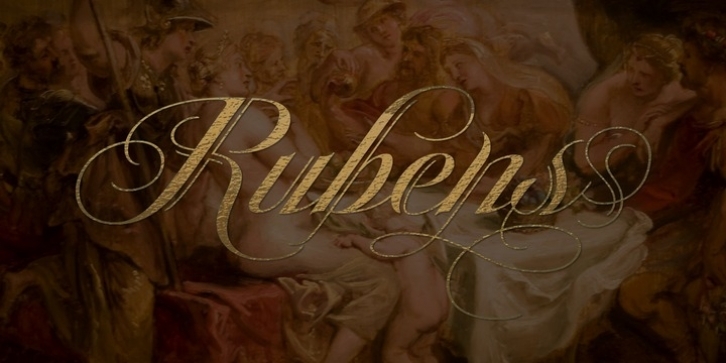
Ornamented scripts are a Koziupa/Paul specialty, and Heraldica is one of their most expressive. It attains the very definition of deluxe by conjoining the classic thin-and-thick script treatment with thin-only counterpart strokes, then it goes the extra mile with a varied complement of overlaid flourishes. The usual assortment of multiple alternates and ending forms pushes it even further in class and versatility.
Monograms, logos, jewelry packaging and book covers are only a few of the possibilities with such a high-end script.